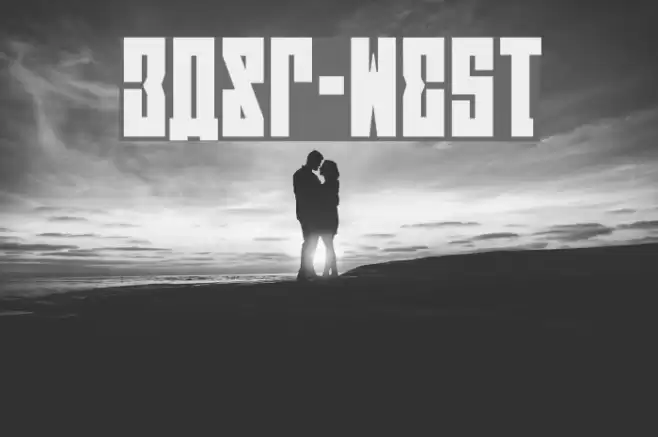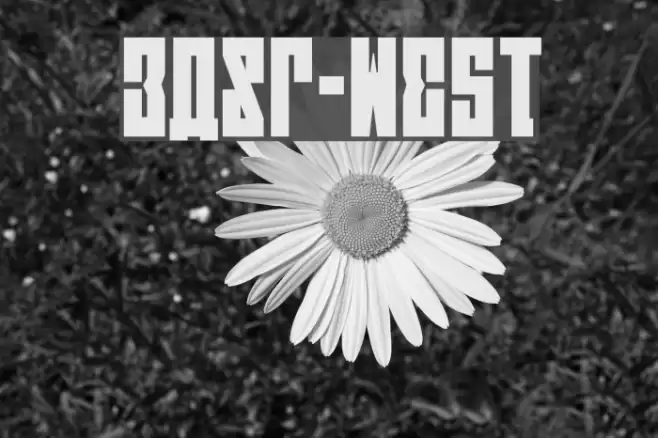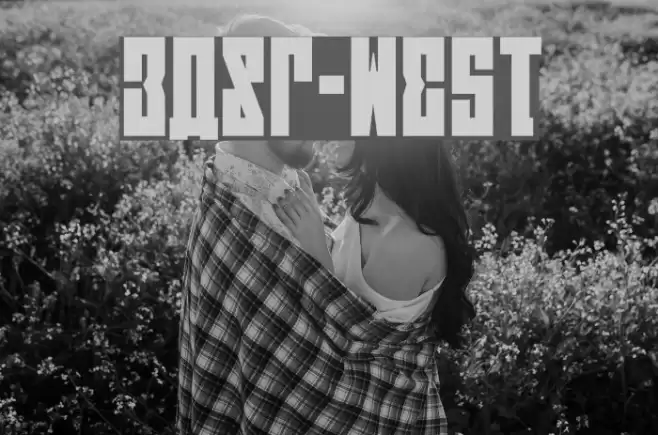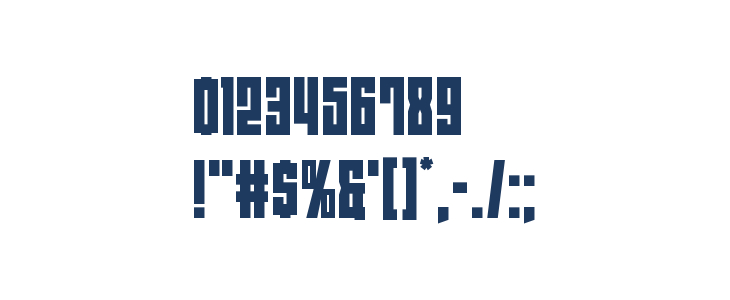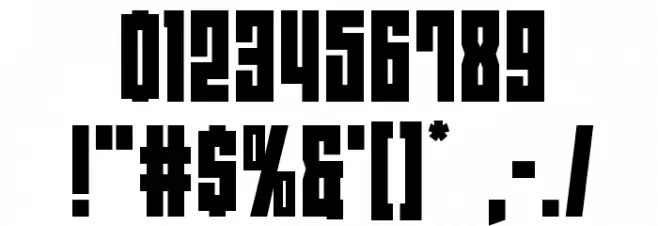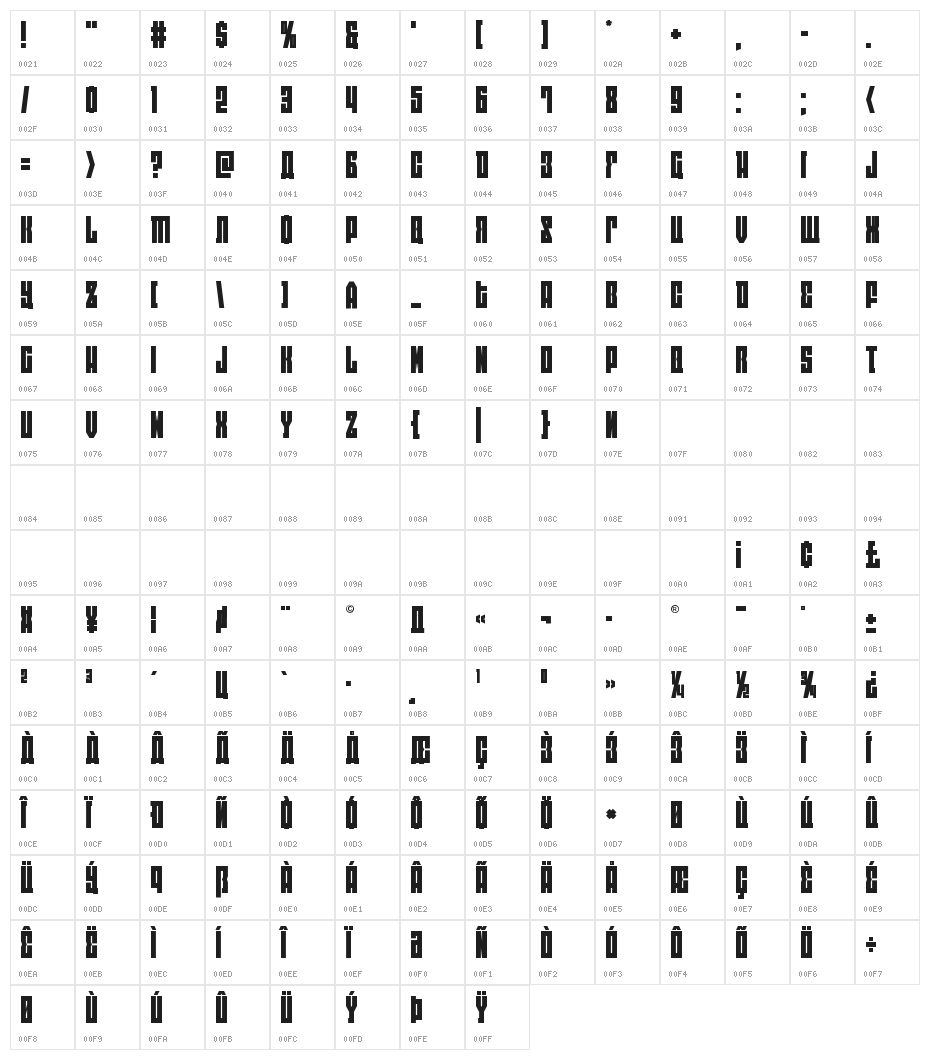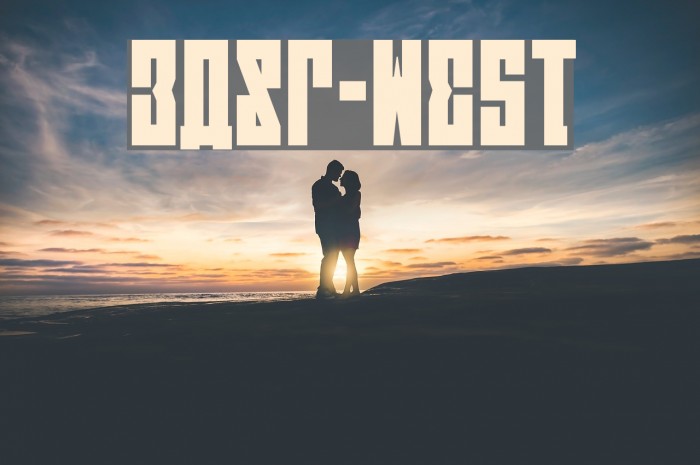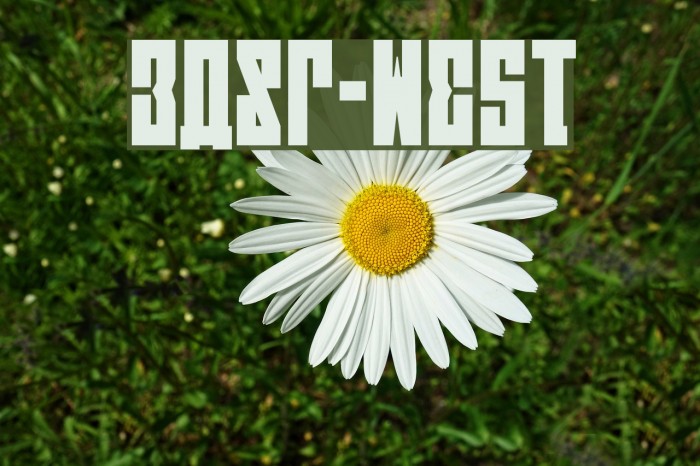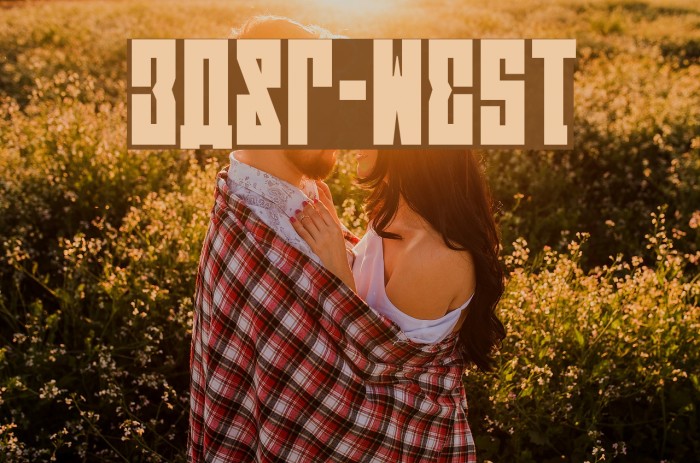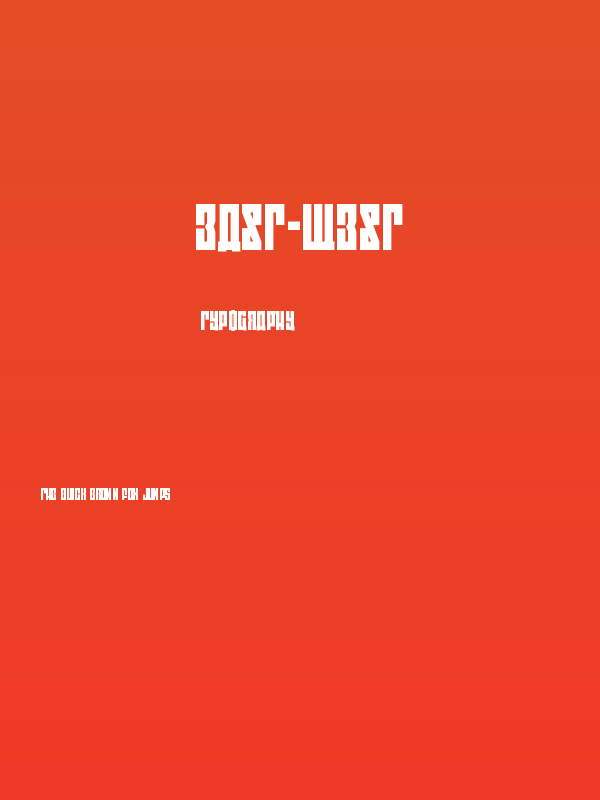
EAST-west Font
EAST-west Description
This font features a bold, geometric design with a strong presence. The characters are blocky and angular, creating a sense of strength and stability. The uppercase letters are particularly striking, with sharp edges and a uniform height that enhances readability. The numbers and special characters maintain the same bold style, ensuring consistency across all text elements. This font is ideal for making a statement, with its high-impact design that draws attention.
A bold, geometric font with a strong, angular design from Uncategorized fonts.
- Proposed Projects: Ideal for posters, headlines, branding, and any project requiring a bold, impactful typeface.